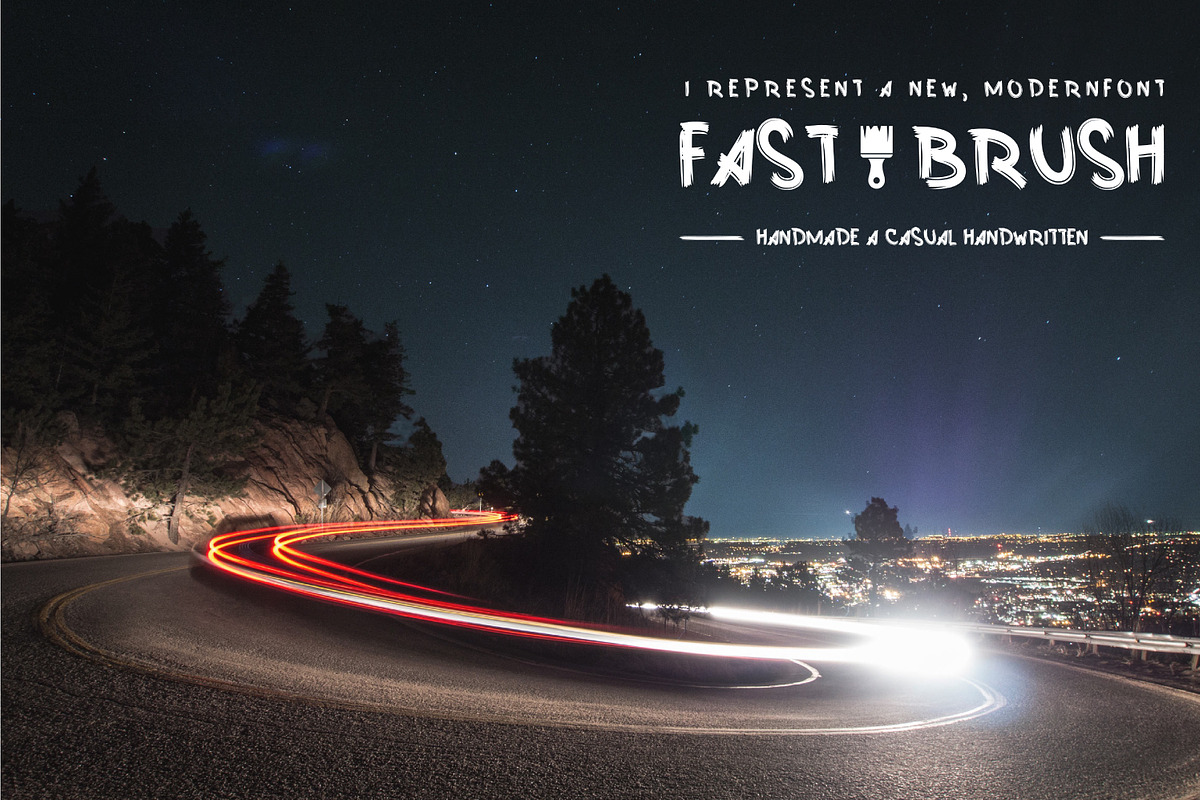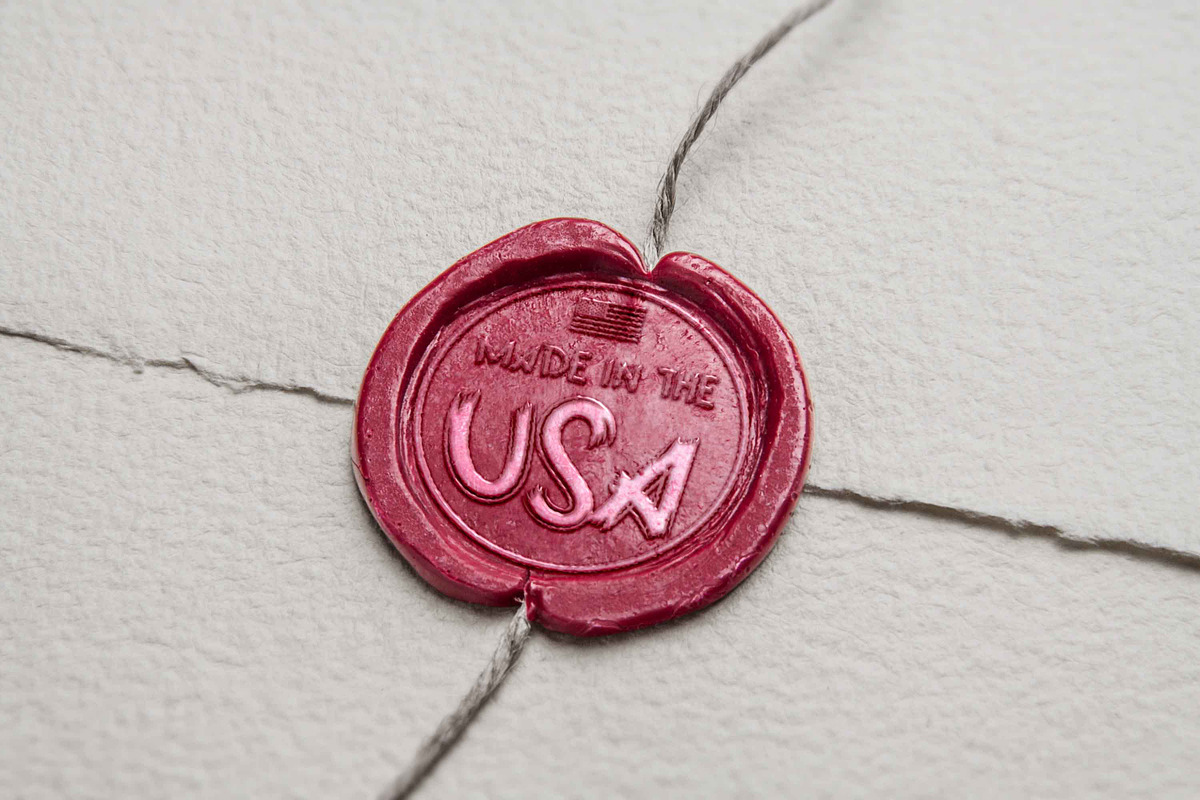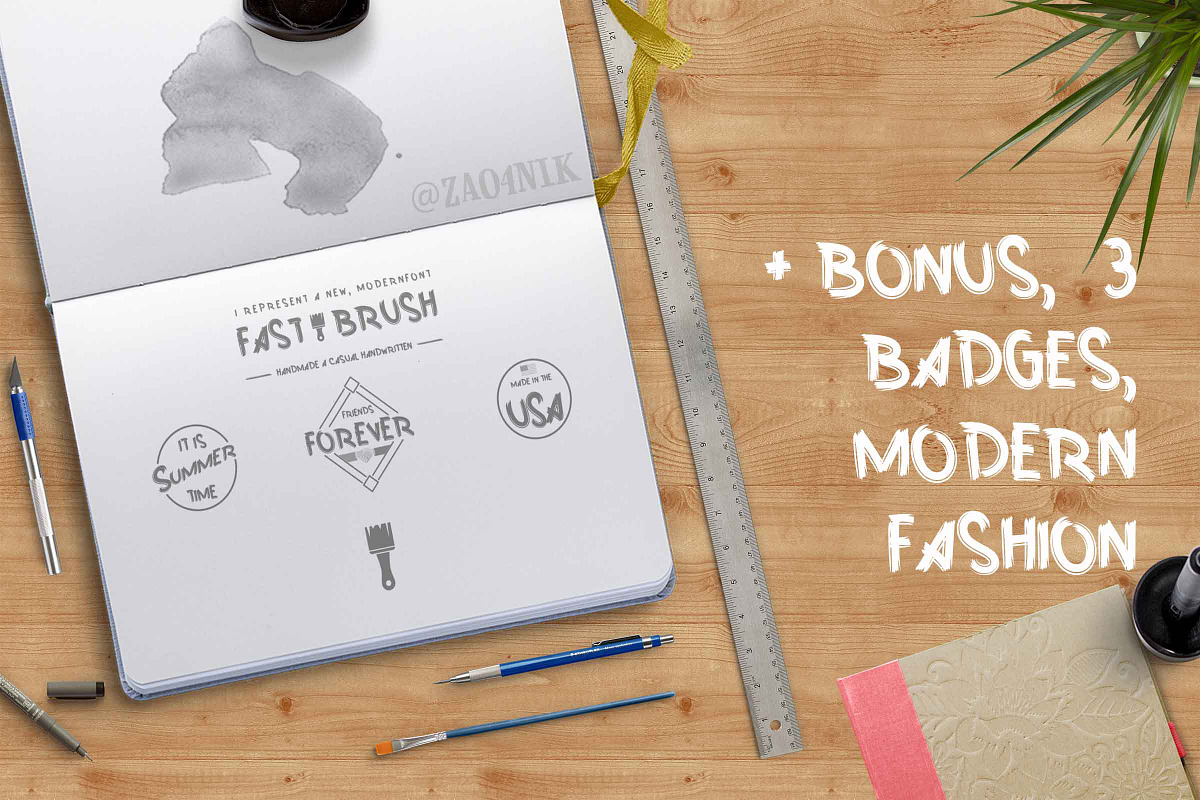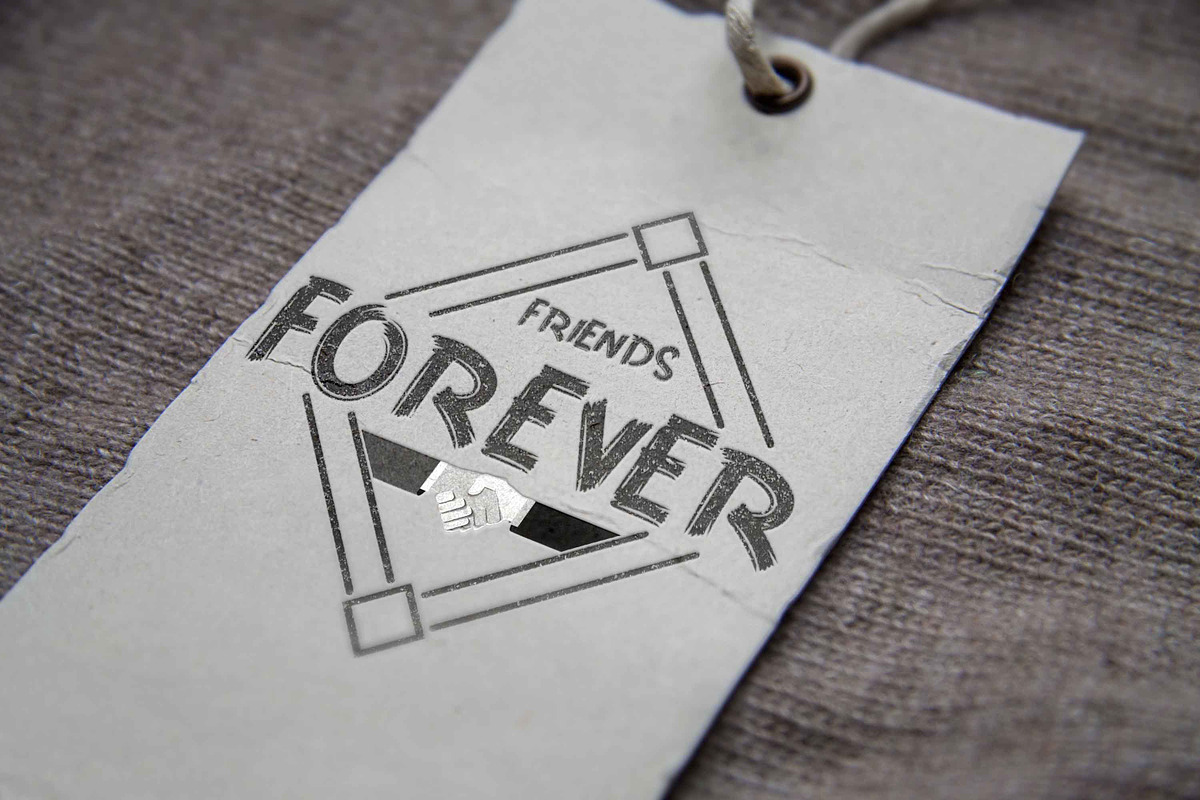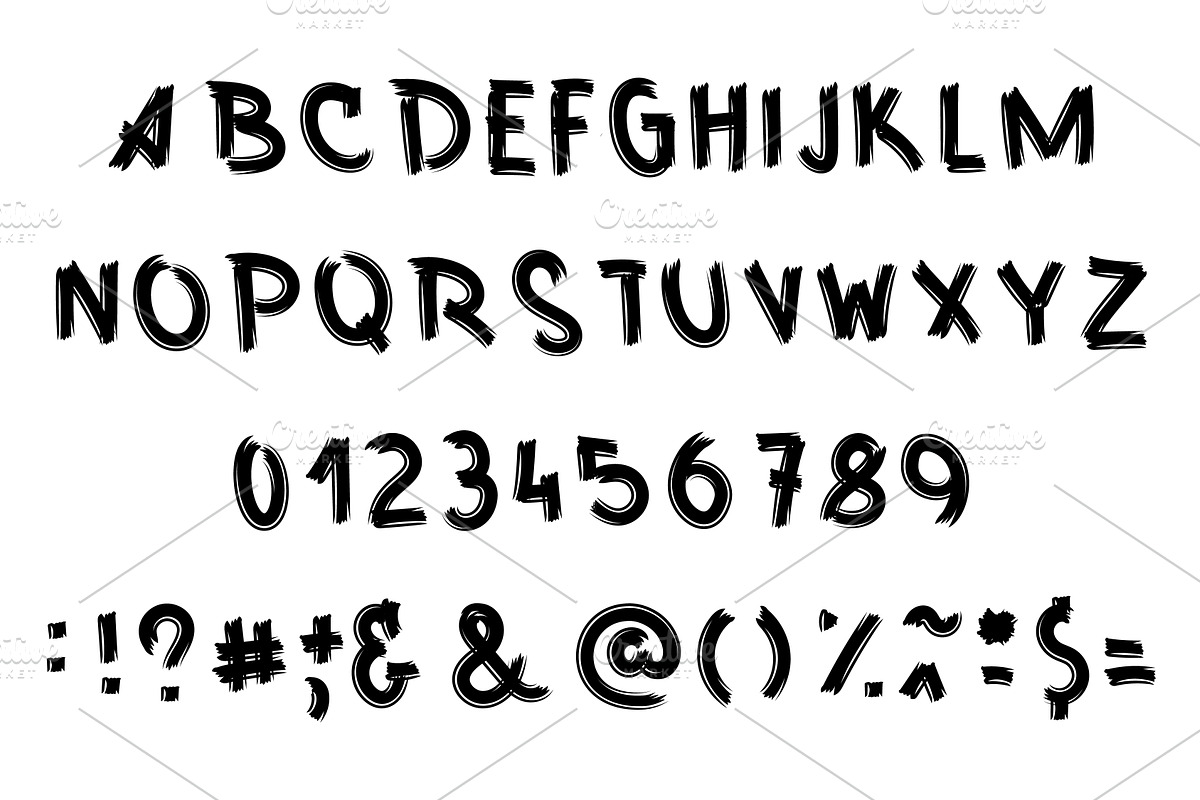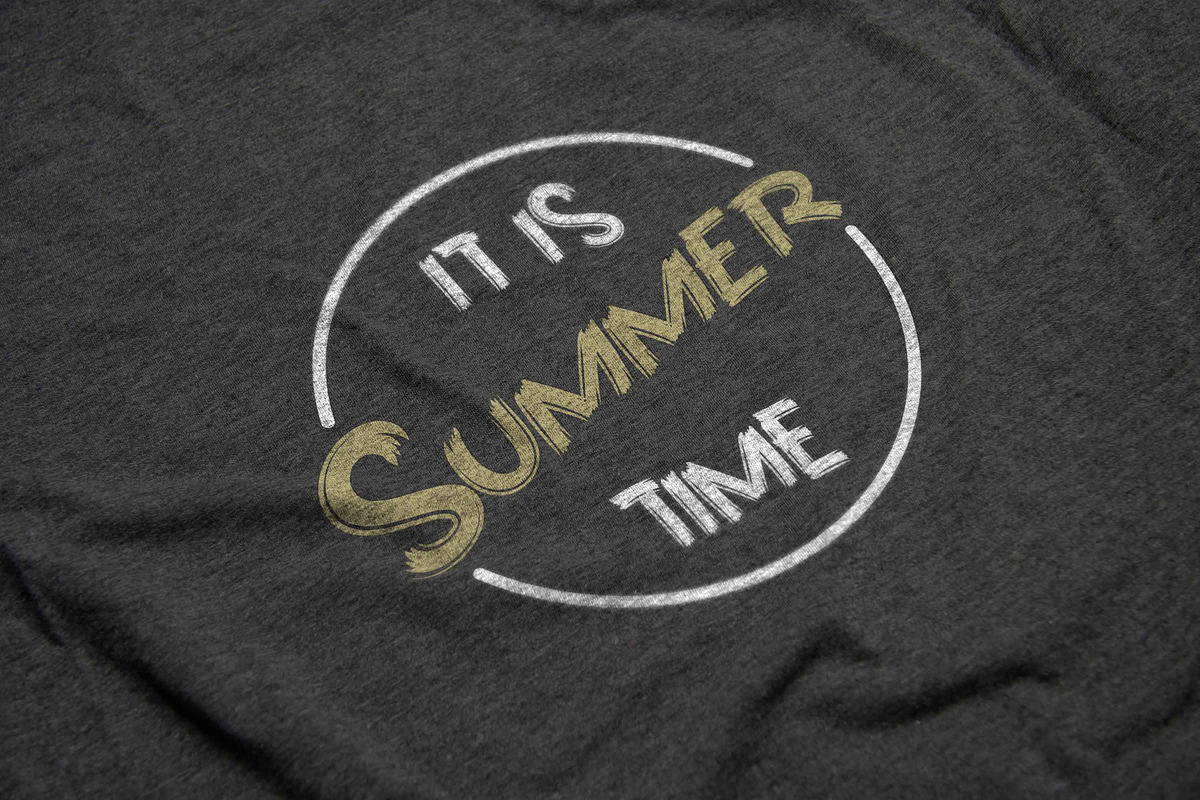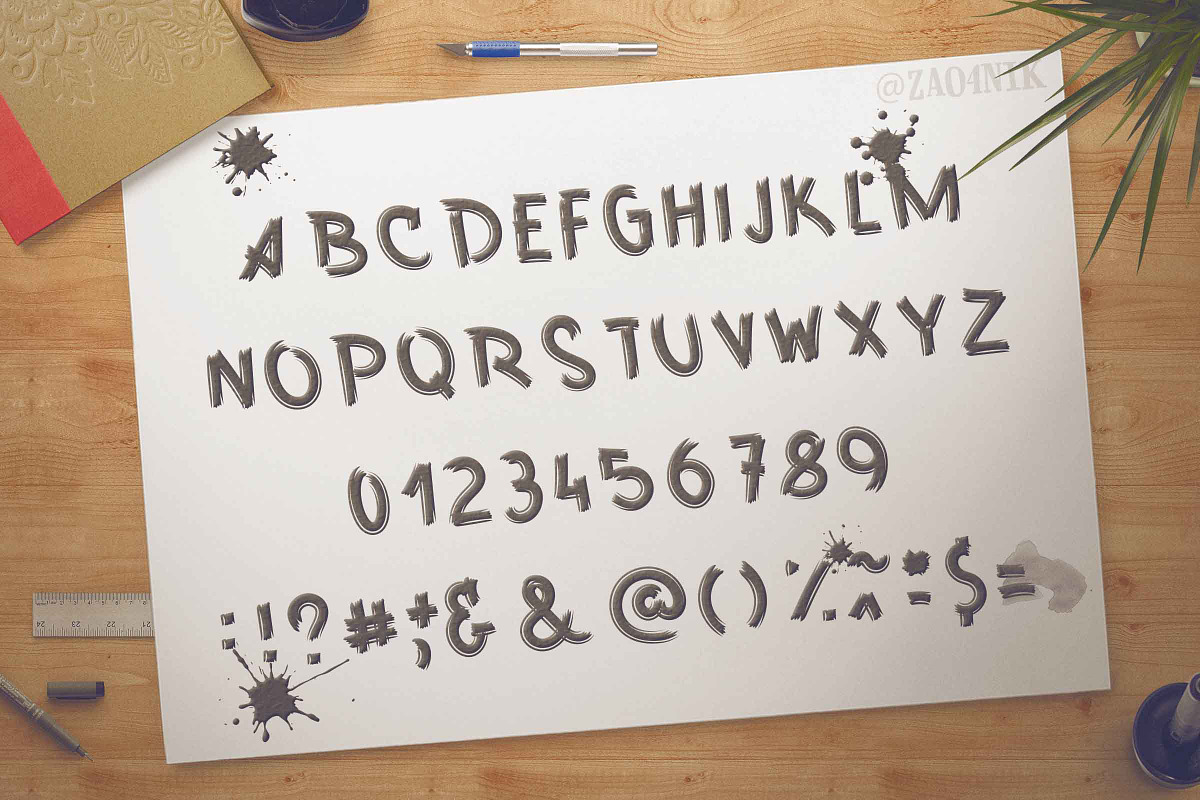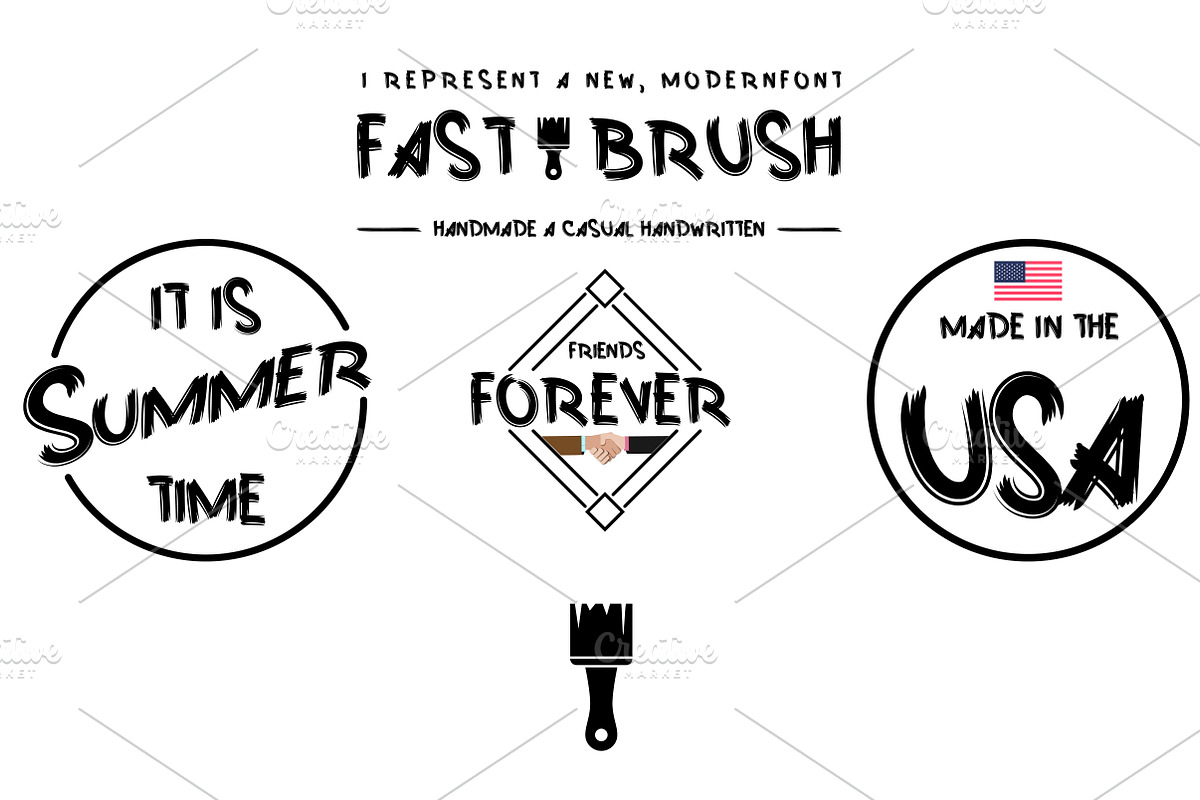
Hi guys! I created a new font. This is written with a brush
60% discount Brush Font Handmade by zao4nik fits naturally into Branding, posters, packaging, typography.